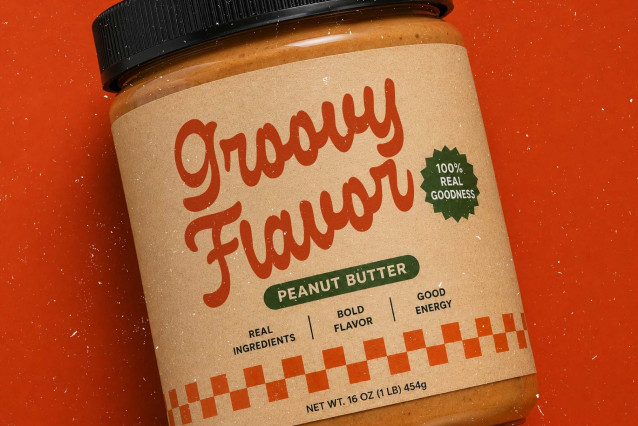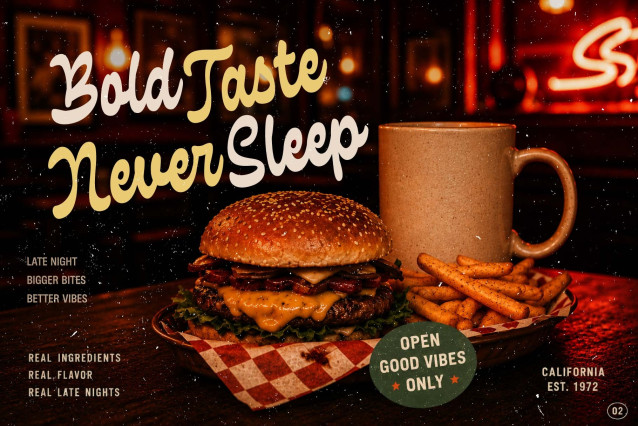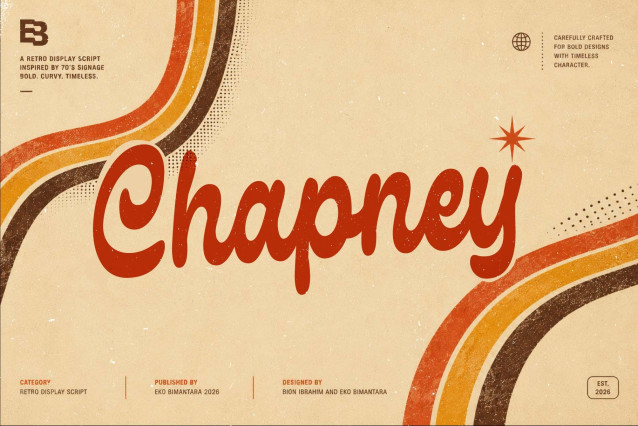
Chapney Font
Chapney Font is a friendly display script font with soft cursive strokes and smoothly designed letterforms that create a warm and approachable personality. Its flowing shapes feel natural and inviting, making the typeface easy to read while still expressive. Chapney is well suited for food branding, product design, web use, headers, titling, and a wide range of creative projects that need a cheerful and personable typographic touch.